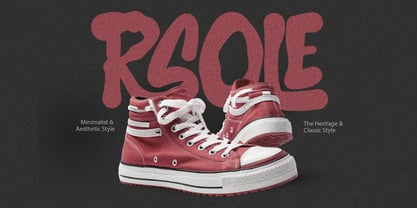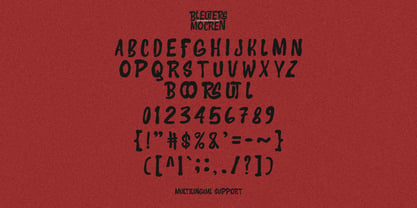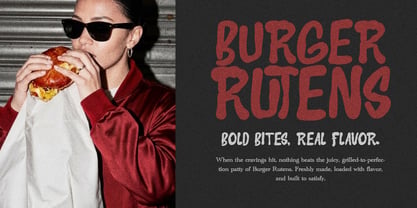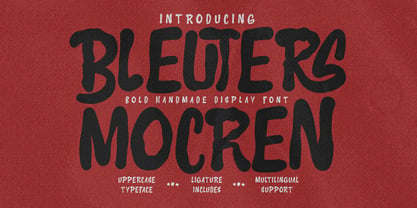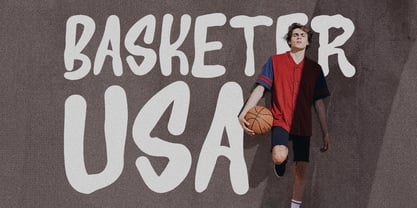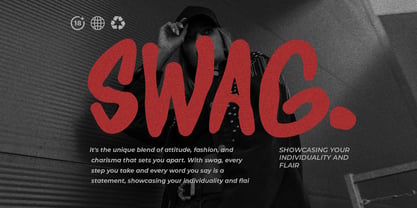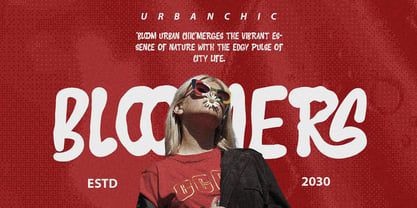
Bleuters Mocren
Bleuters Mocren is a vibrant, handmade display font that effortlessly infuses your creative projects with an energetic and urban edge. Featuring thick, organic brush strokes and playful yet confident letterforms, this typeface perfectly captures the fluid balance between contemporary city culture and natural, expressive art.
Designed for maximum visual impact, it is ideal for bold branding, dynamic logos, packaging design, merchandise, marketing campaigns, food trucks, sports media, and large headlines. With its multilingual support and rich character set, Bleuters Mocren delivers a raw, stylistic flair that ensures your message stands out with attitude and individuality.